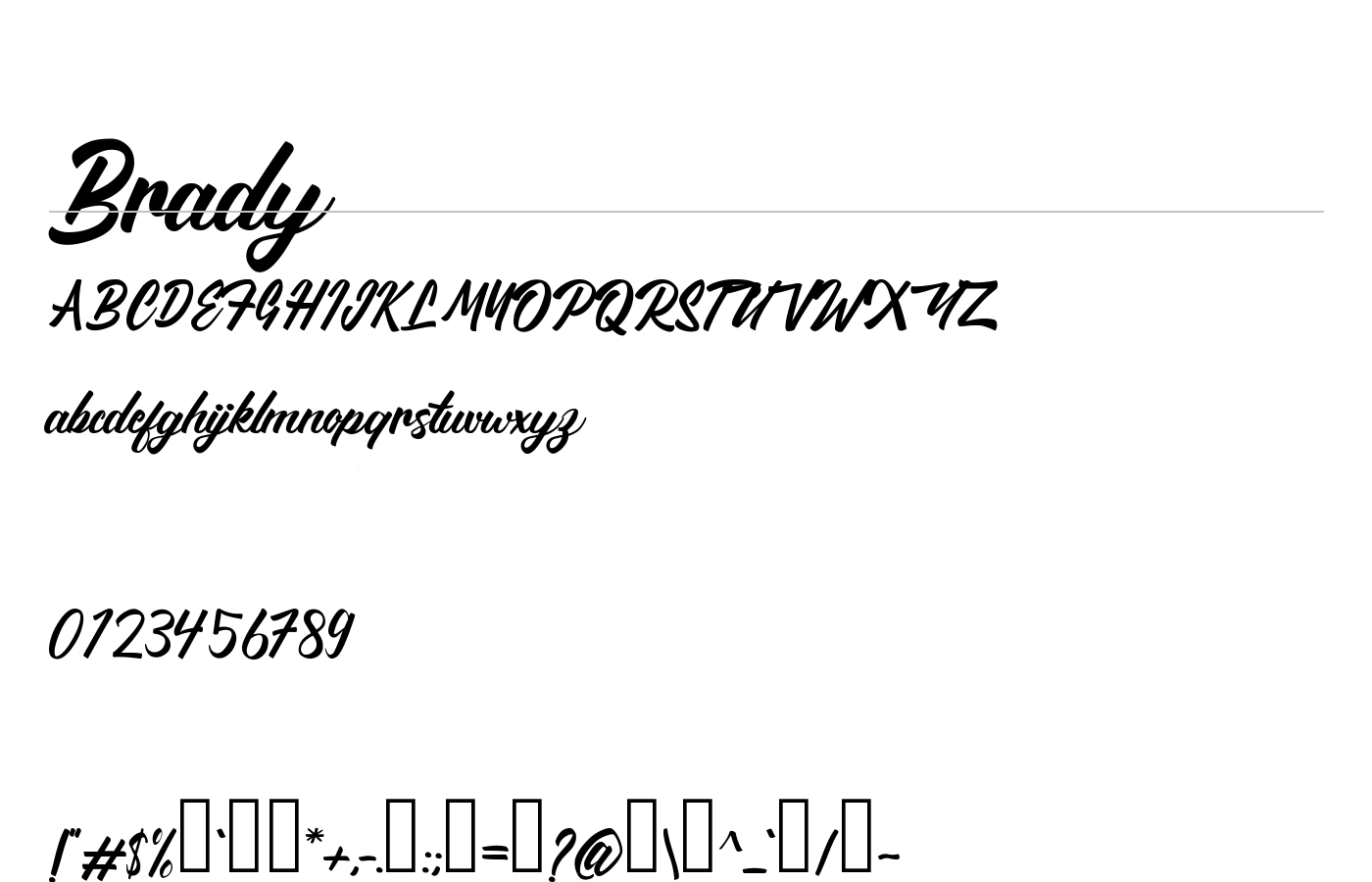
Brady is a bold, cursive script font characterized by its smooth, flowing strokes and strong, slightly condensed letterforms. It exudes a stylish, retro feel with a vibrant, energetic personality, making it ideal for logos, branding, and headlines that seek to capture attention with elegance and flair. This font works well in fashion, lifestyle, and creative projects where a confident yet friendly script is desired.
Brady Font
About Brady Font